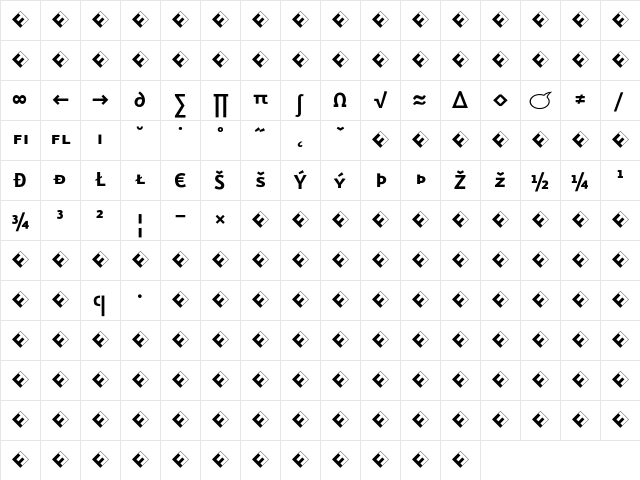
Complete Eureka Sans Bold Caps Exp glyph index. Displaying only characters natively supported by Eureka Sans Bold Caps Exp font.
Eureka Sans is a composed and adaptable typeface that performs quietly and consistently across a wide range of design contexts. Its bold stroke weight gives it real presence on the page.